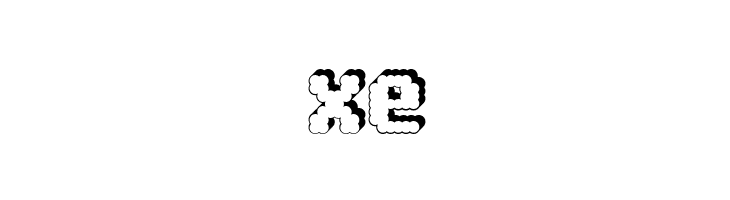
Hokjesgeestcube Italic Font
- Font: Hokjesgeestcube Italic
( Fonts by Paul Reid - tracertong.co.uk )
A pixelated, monospaced typeface with a retro, digital aesthetic.